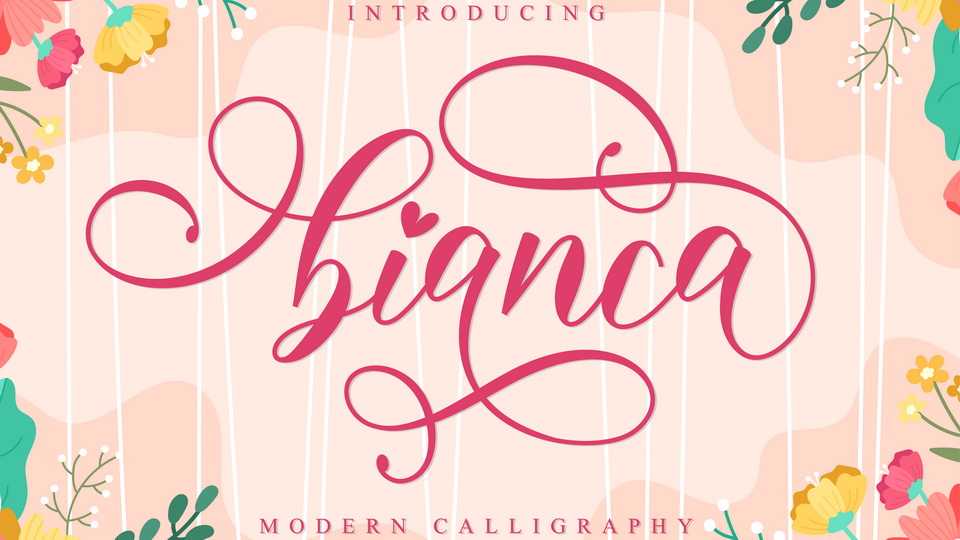
Download Bianca font, a beautiful and elegant calligraphy script. Its modern and classy look makes Bianca the perfect font for creating outstanding design projects.
Designer: Nissa Studio